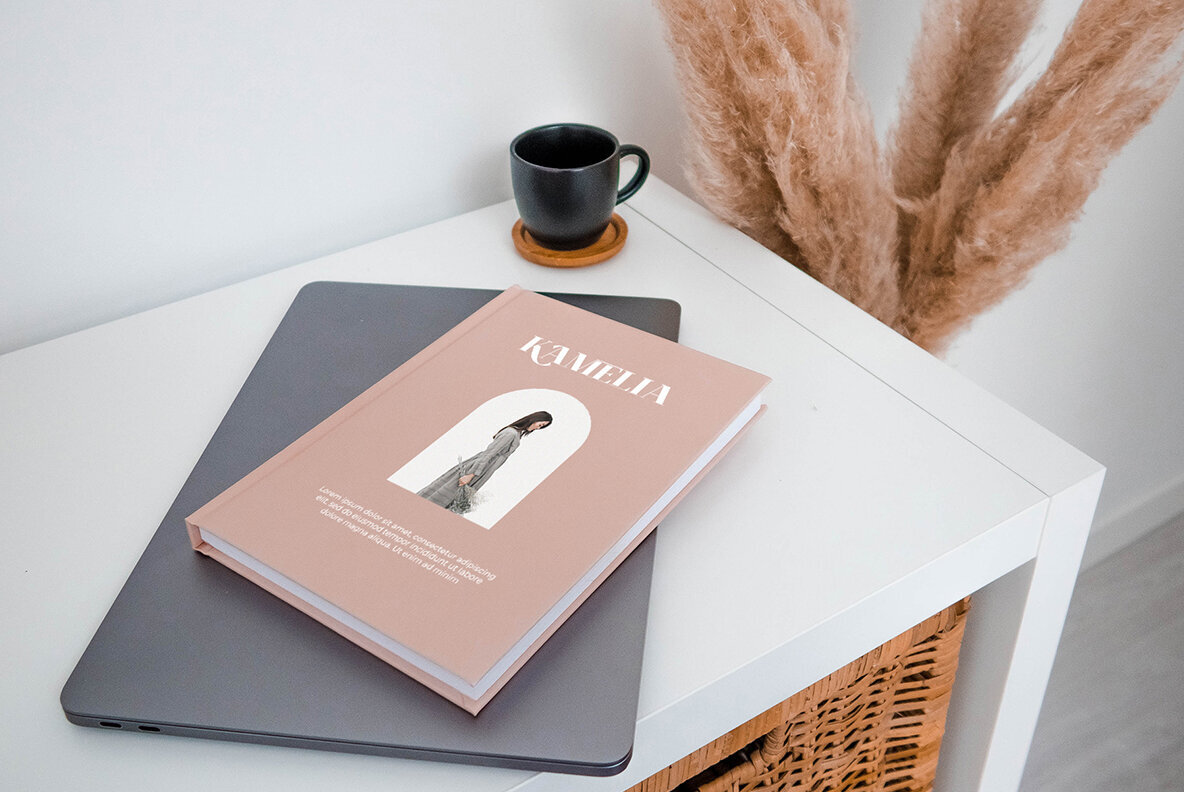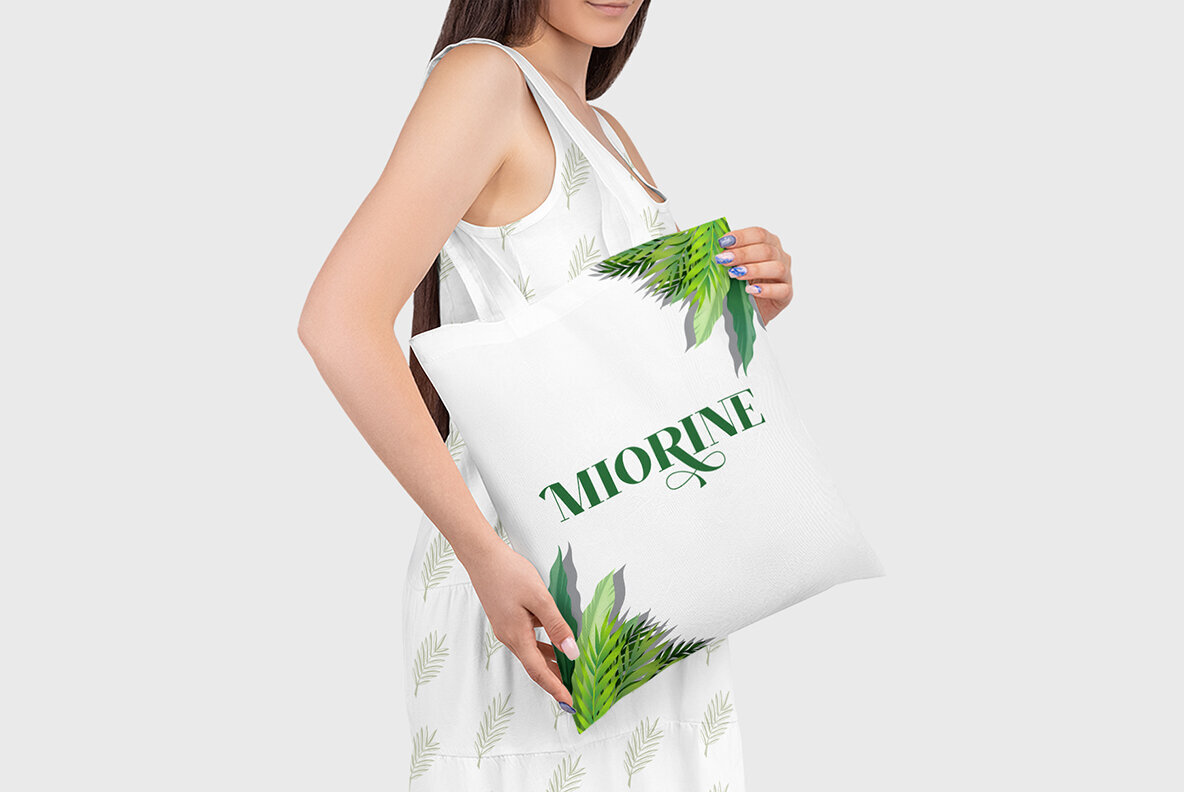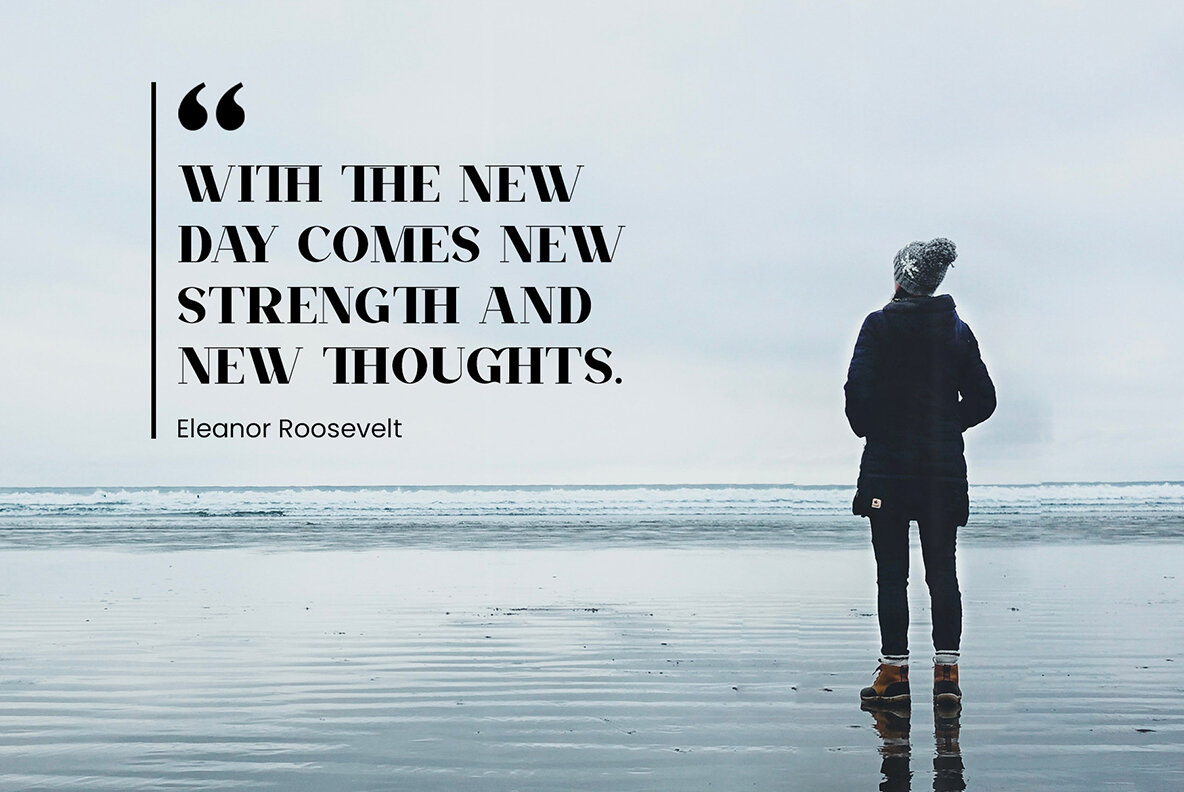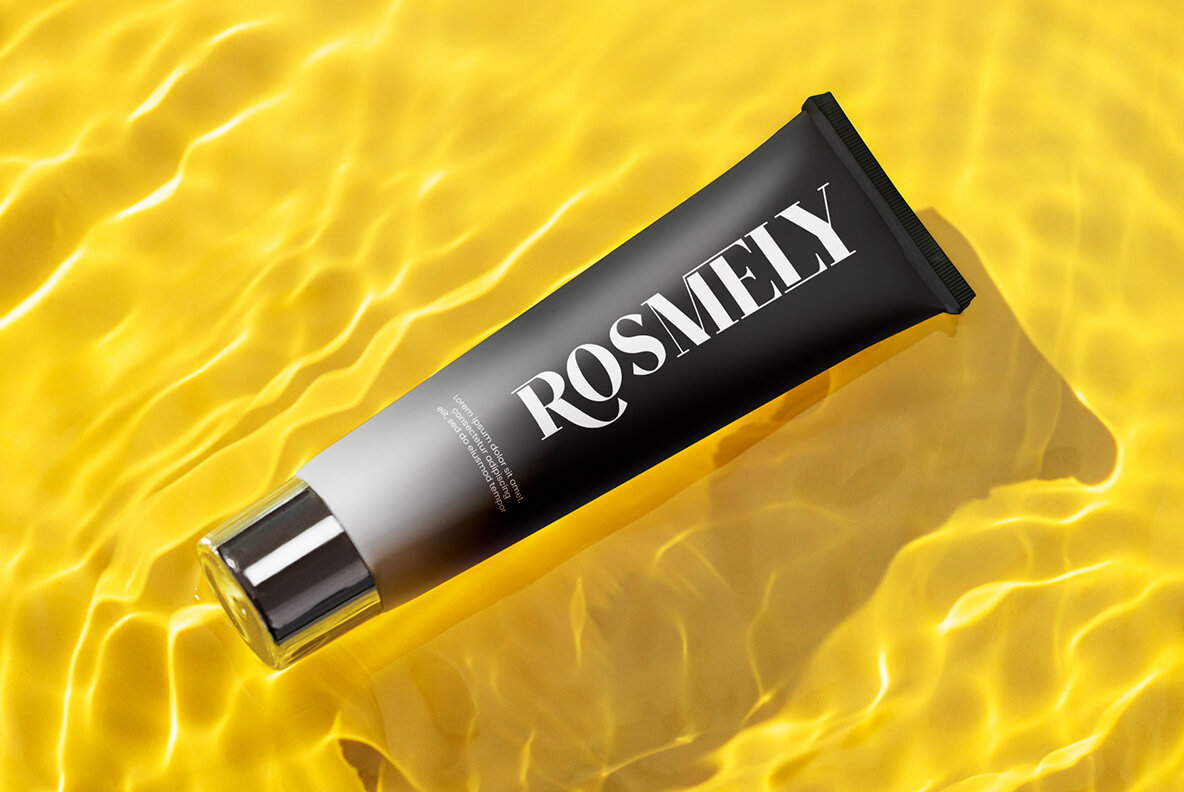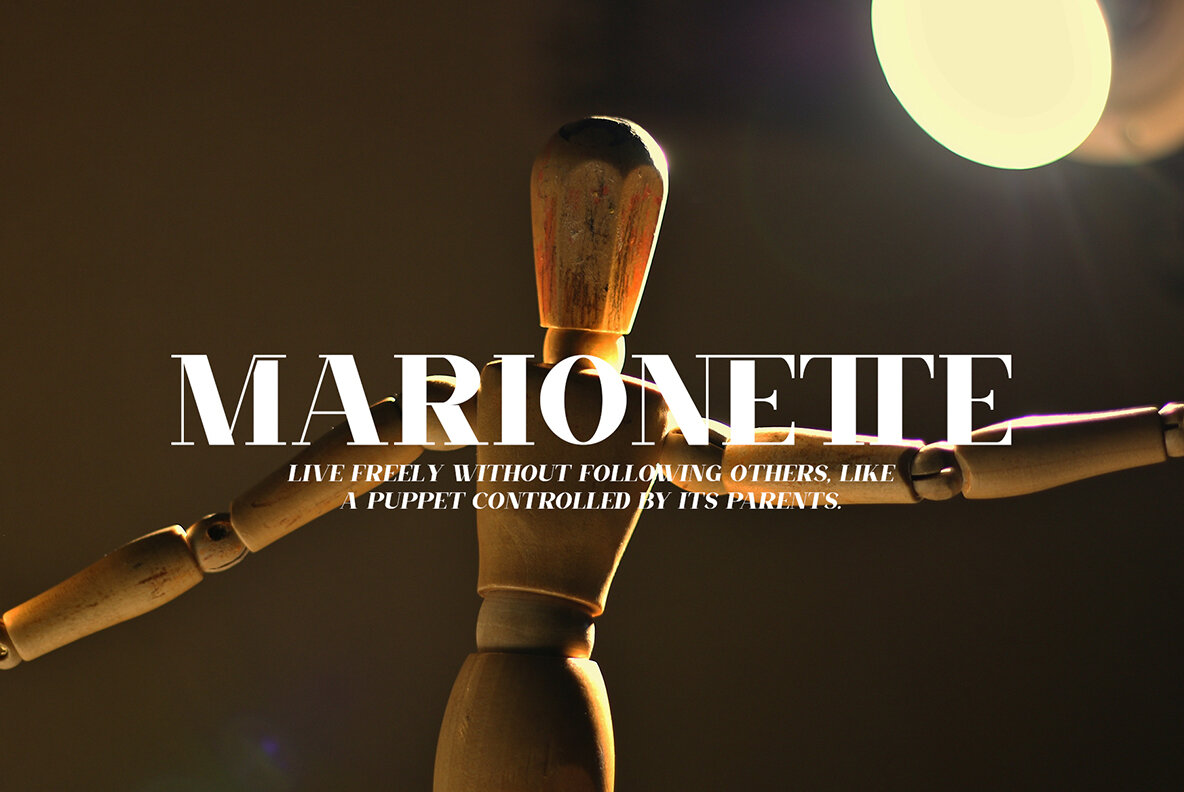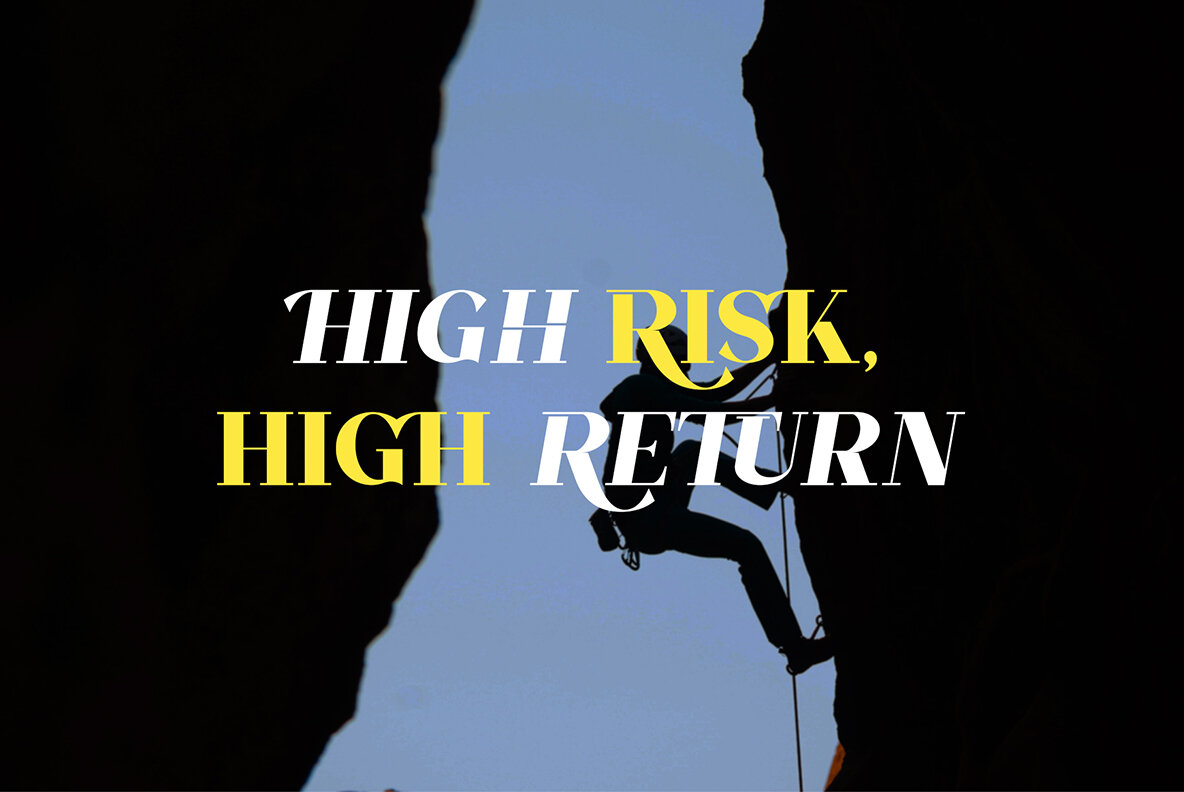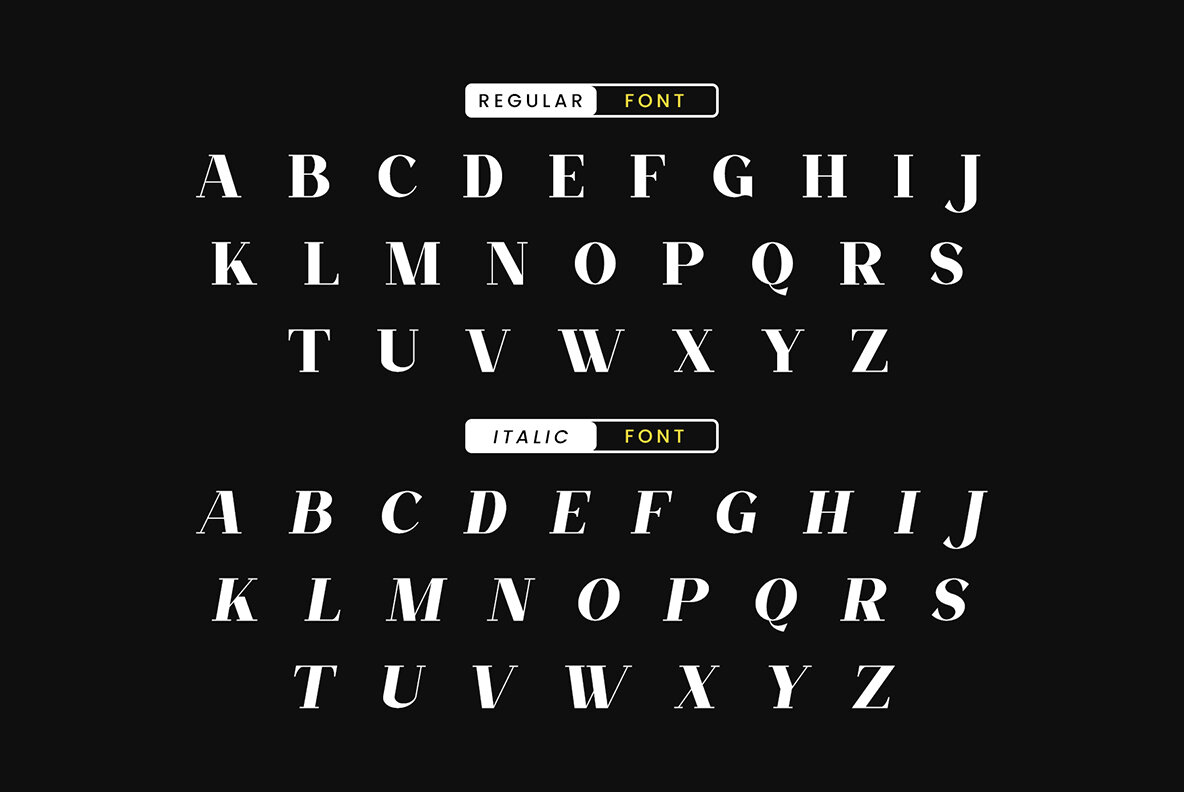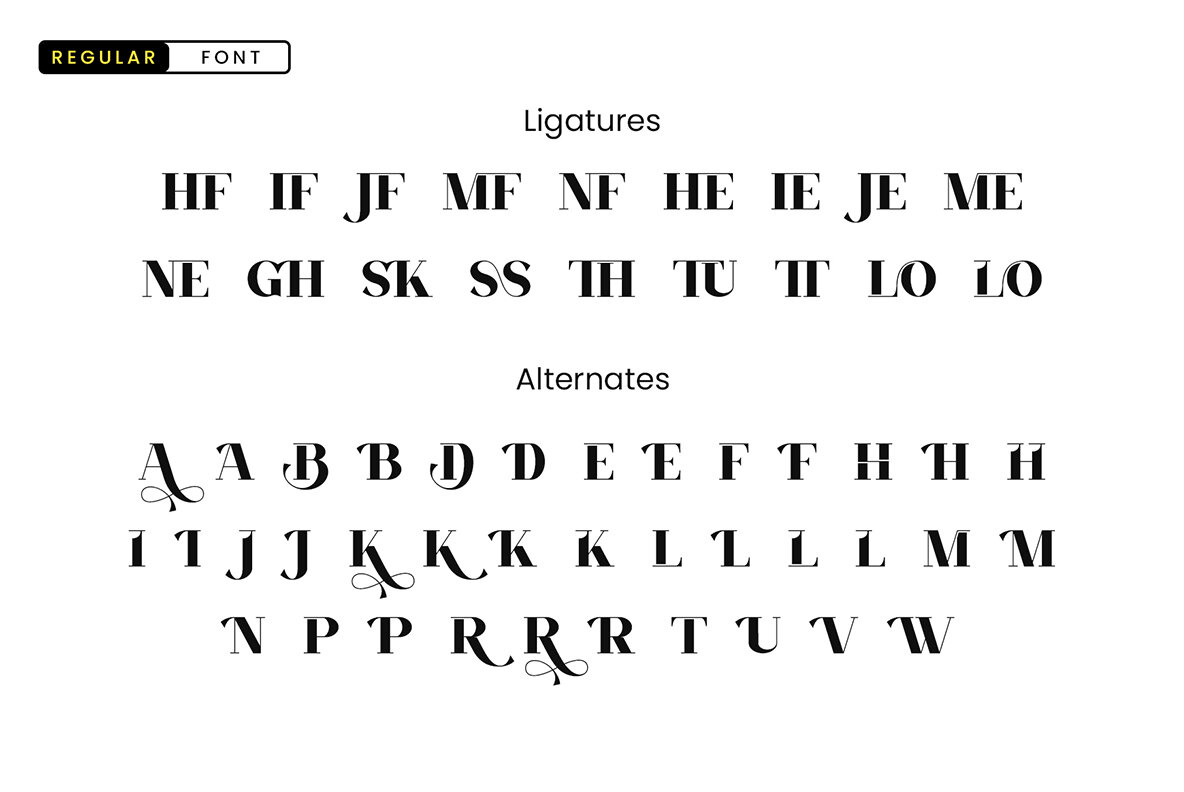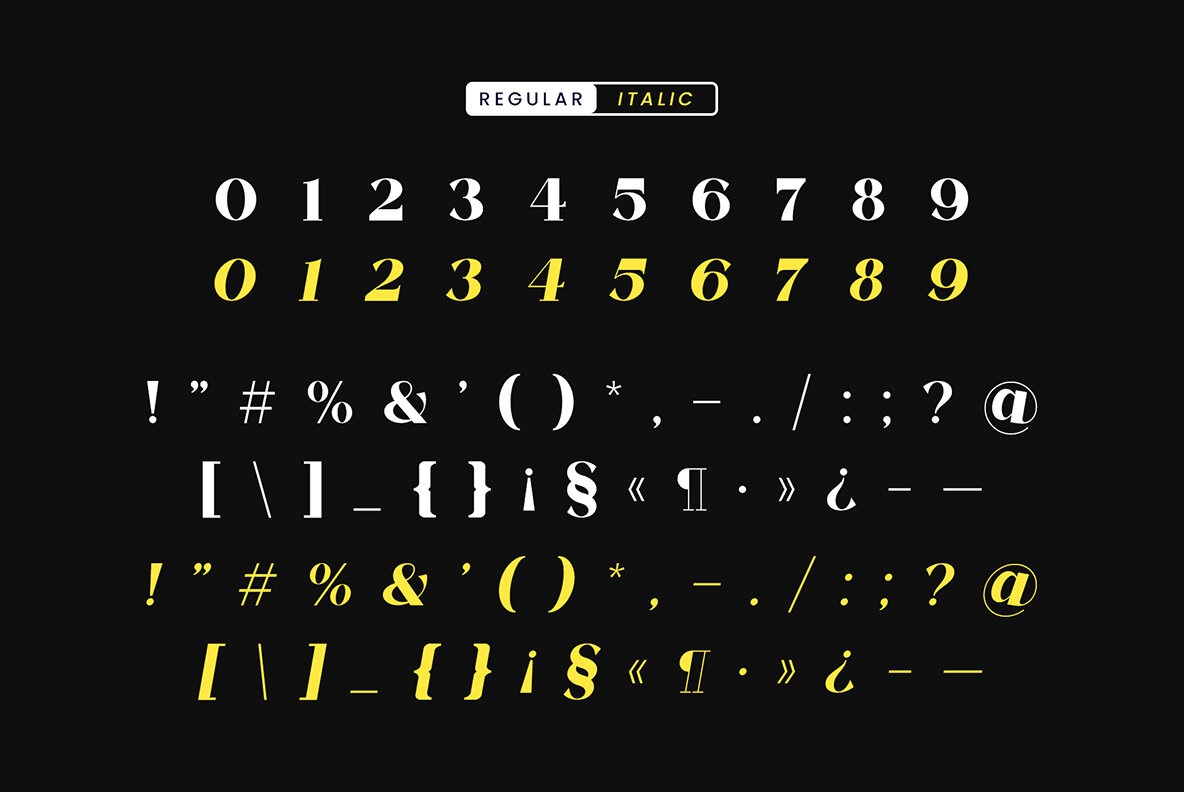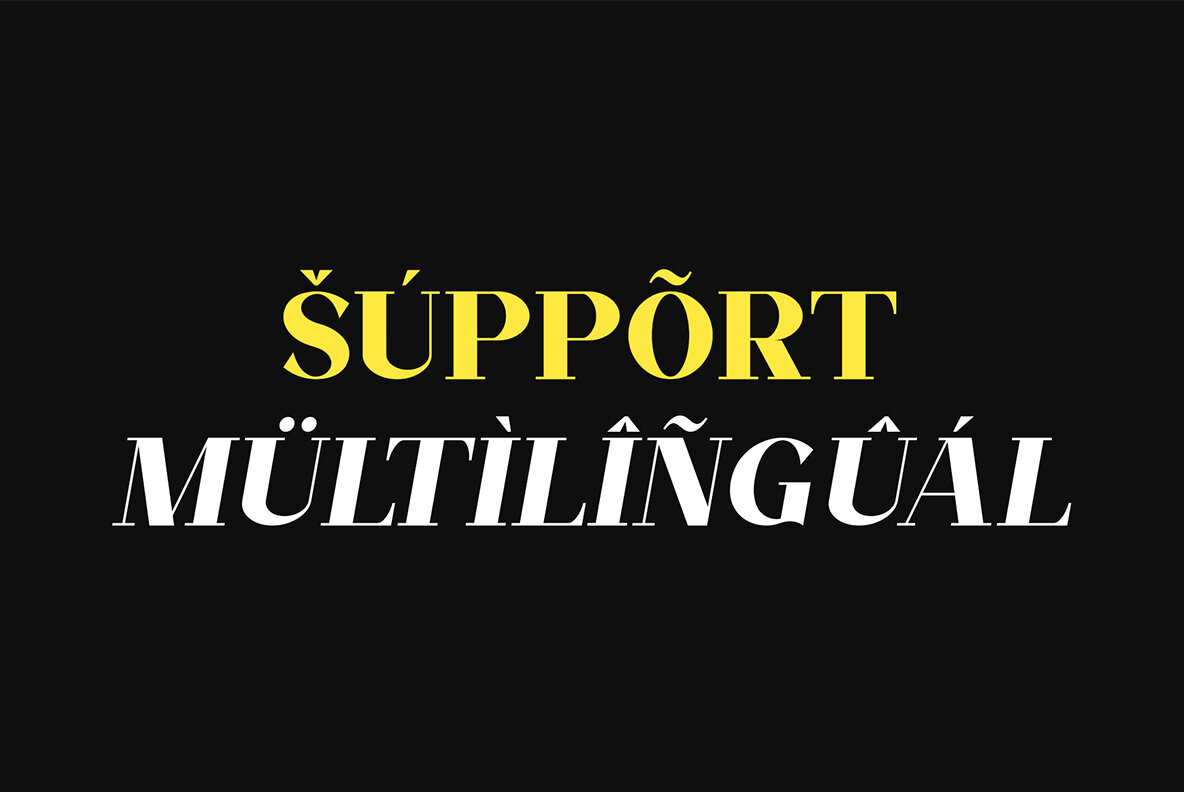
Filora Font
Filora Serif is an elegant and smooth typeface that combines regular and italic serif styles to create a beautiful character. This sophisticated font is perfect for invitation cards, company logos, movie titles, business cards, book titles, brand names, and various other designs. Filora Serif exudes sophistication and elegance with its stylish alternations and ligatures, making it the optimal choice for any project.Filora Serif: Elegance in Typography